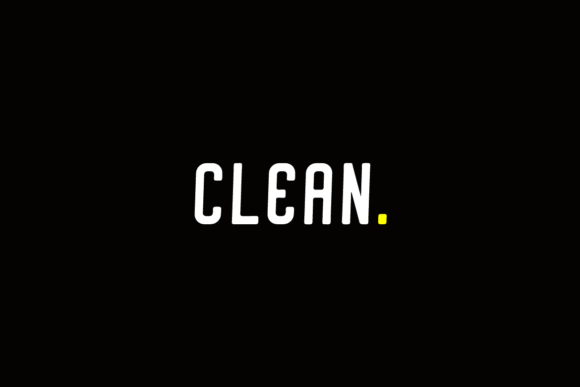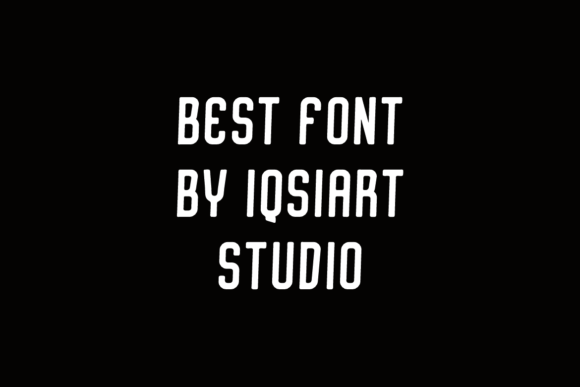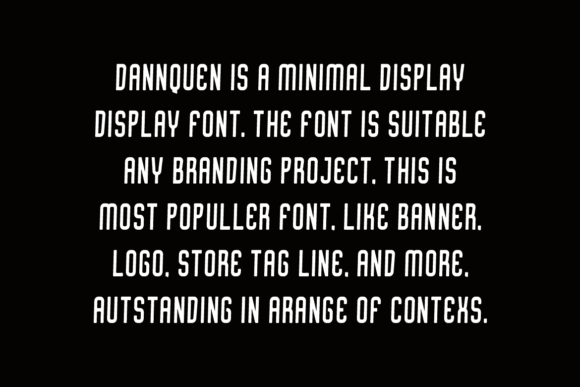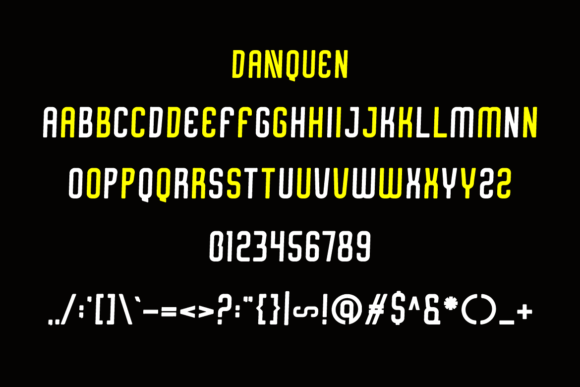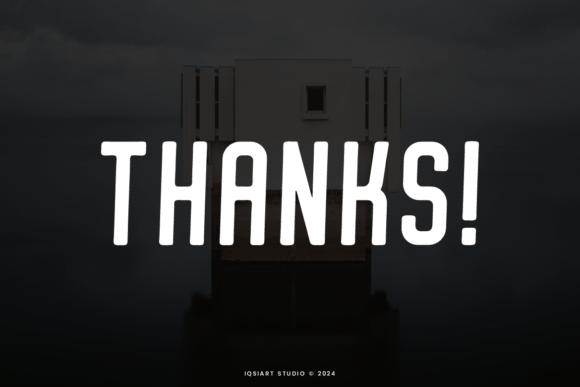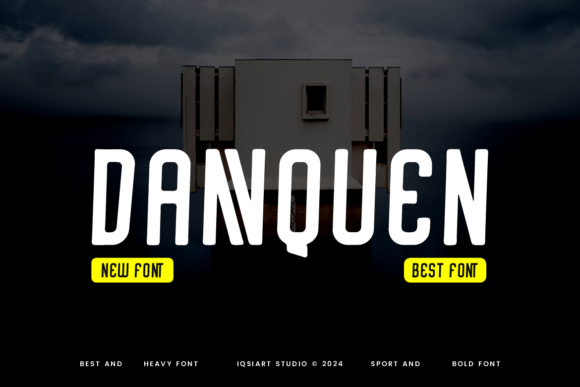
Introducing Dannquen Font: The Ultimate Display Font for Bold Headlines
In the world of typography, a good font can make all the difference in creating a lasting impression. For designers and crafters looking to add a touch of modern style to their projects, Dannquen Font is an excellent choice. This bold and stylish display font is perfect for making strong, eye-catching headlines that demand attention.
What Makes Dannquen Font Stand Out?
Dannquen Font boasts a unique combination of thick letters and a modern design, making it ideal for a variety of applications, including posters, logos, and any project that needs to stand out from the crowd. Its bold and stylish appearance is sure to grab the attention of your audience, whether you’re designing a flyer, brochure, or website.
Key Features of Dannquen Font
- Bold and Stylish: Dannquen Font features thick letters that exude confidence and style, making it perfect for creating eye-catching headlines.
- Modern Design: The font’s modern design ensures that your project looks contemporary and fresh, appealing to a wide range of audiences.
- Versatile: Dannquen Font can be used for various projects, including posters, logos, flyers, brochures, and websites.
- Easy to Read: Despite its bold design, Dannquen Font remains easy to read, ensuring that your message is communicated effectively.
Uses of Dannquen Font
Dannquen Font’s versatility makes it suitable for a wide range of projects, including:
- Posters: Create eye-catching posters for events, promotions, or advertisements that grab attention.
- Logos: Use Dannquen Font to create a bold and memorable logo for your brand, ensuring that it stands out from the competition.
- Flyers and Brochures: Add a touch of modern style to your marketing materials with Dannquen Font, making them more engaging and effective.
- Websites: Use Dannquen Font to create bold and stylish headlines for your website, enhancing its visual appeal and user experience.
Tips for Using Dannquen Font
To get the most out of Dannquen Font, consider the following tips:
- Use it Sparingly: While Dannquen Font is perfect for headlines, it’s best to use it sparingly to avoid overwhelming your audience.
- Pair it with Other Fonts: Combine Dannquen Font with other fonts to create a visually appealing contrast and add depth to your design.
- Experiment with Colors: Try different colors and gradients to enhance the visual impact of Dannquen Font and make it more engaging.
Dannquen Font is a powerful tool for designers and crafters looking to create bold and stylish headlines that capture attention. Its unique combination of thick letters and modern design makes it perfect for a variety of projects, from posters and logos to websites and marketing materials. By incorporating Dannquen Font into your design arsenal, you’ll be able to create visually stunning projects that leave a lasting impression on your audience.